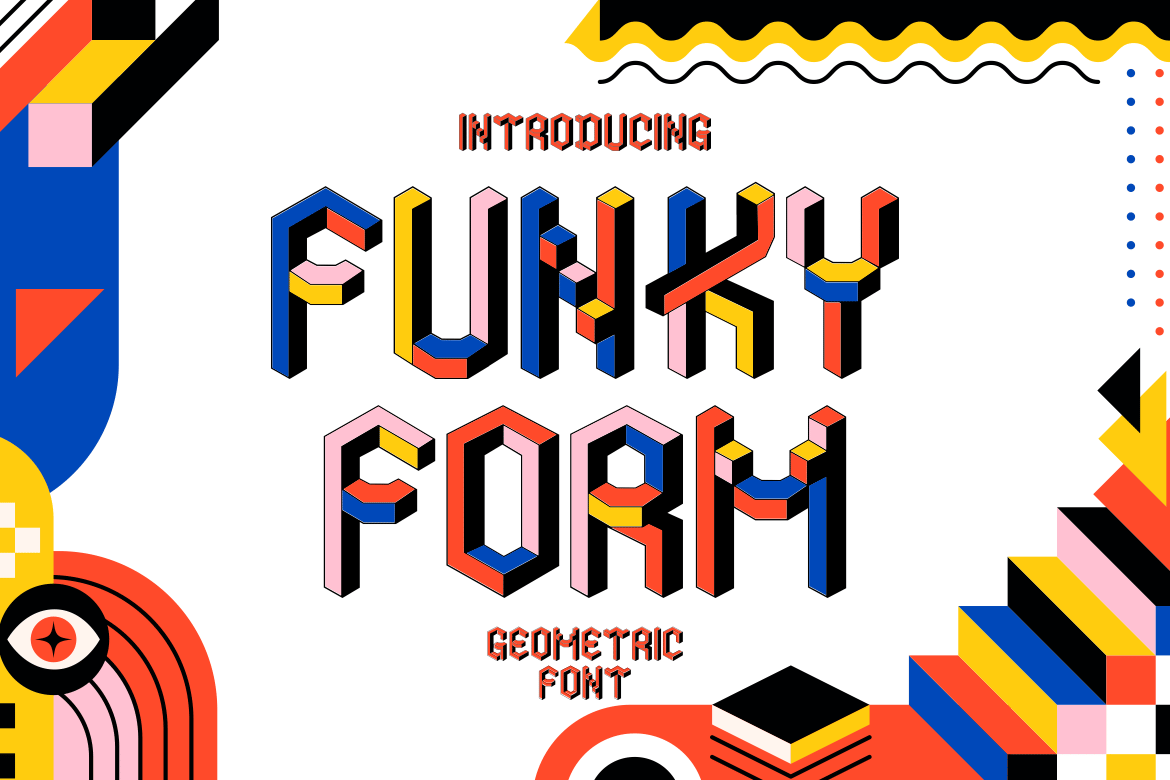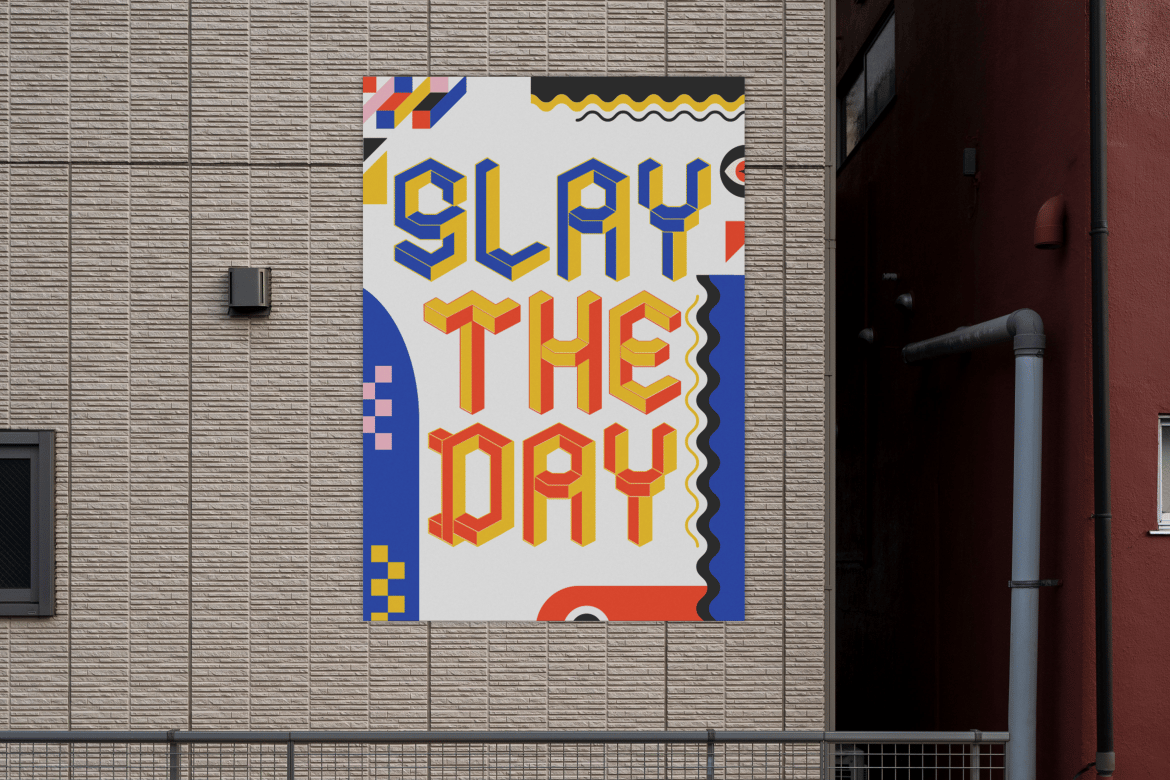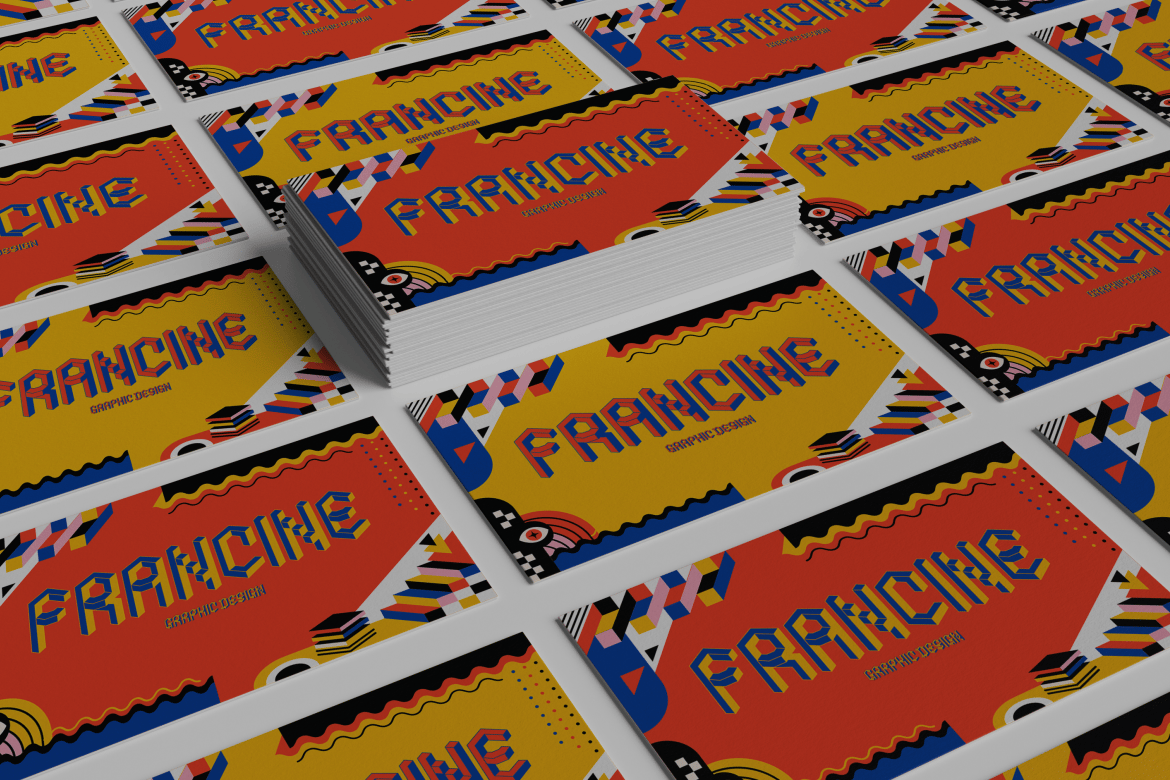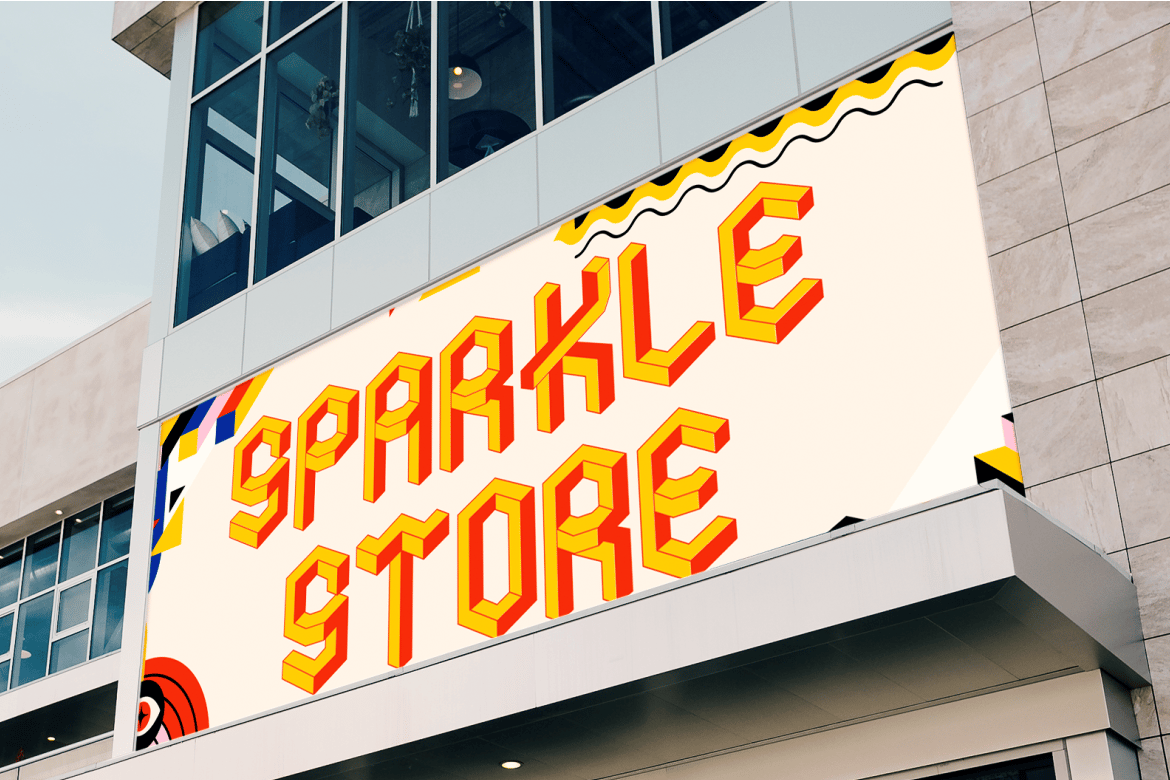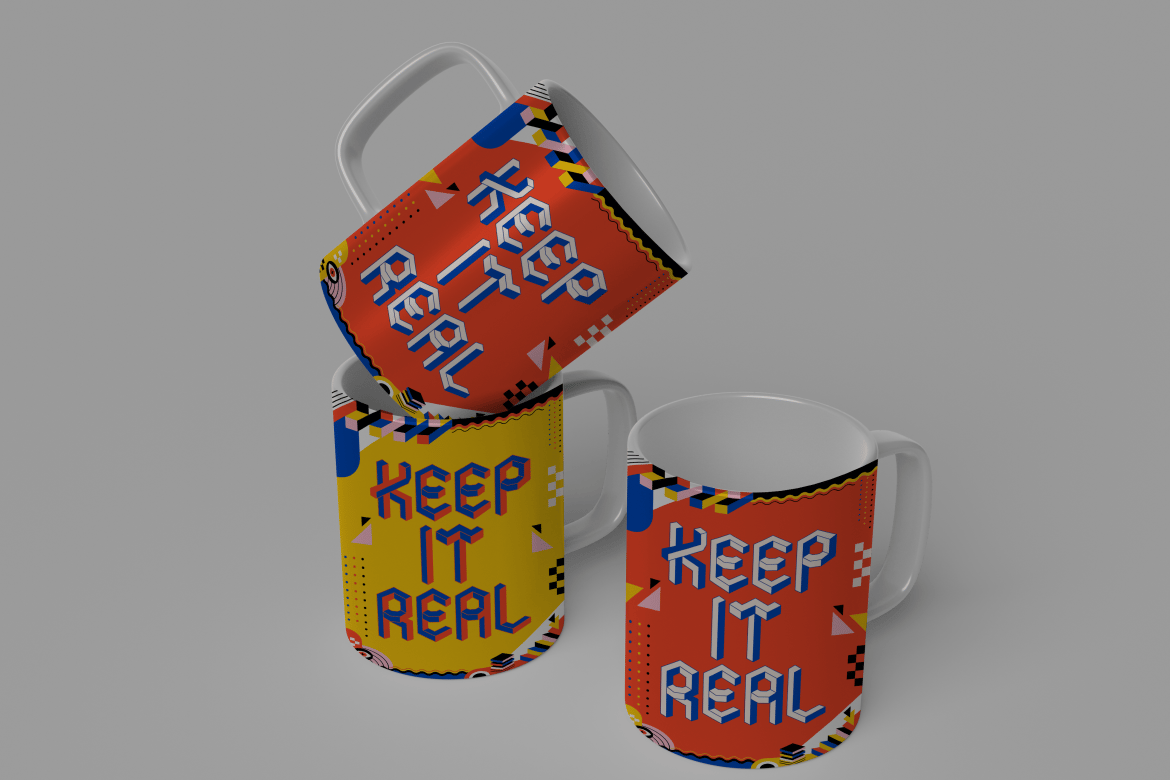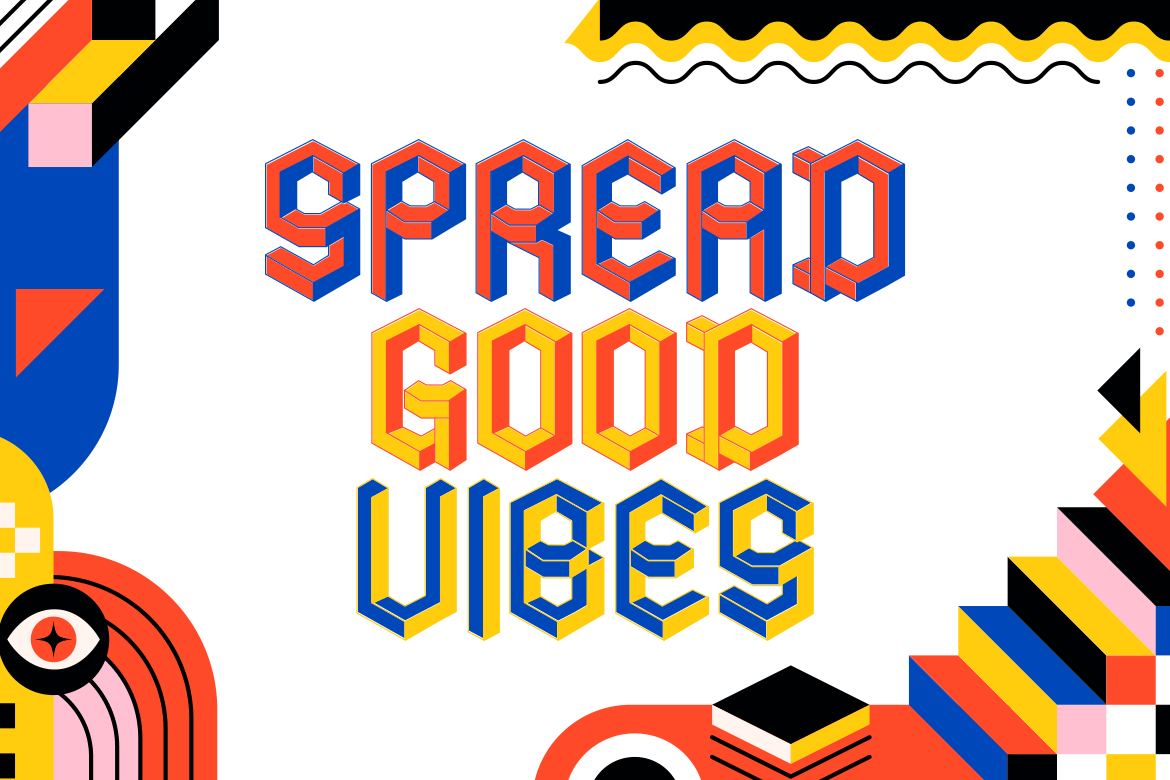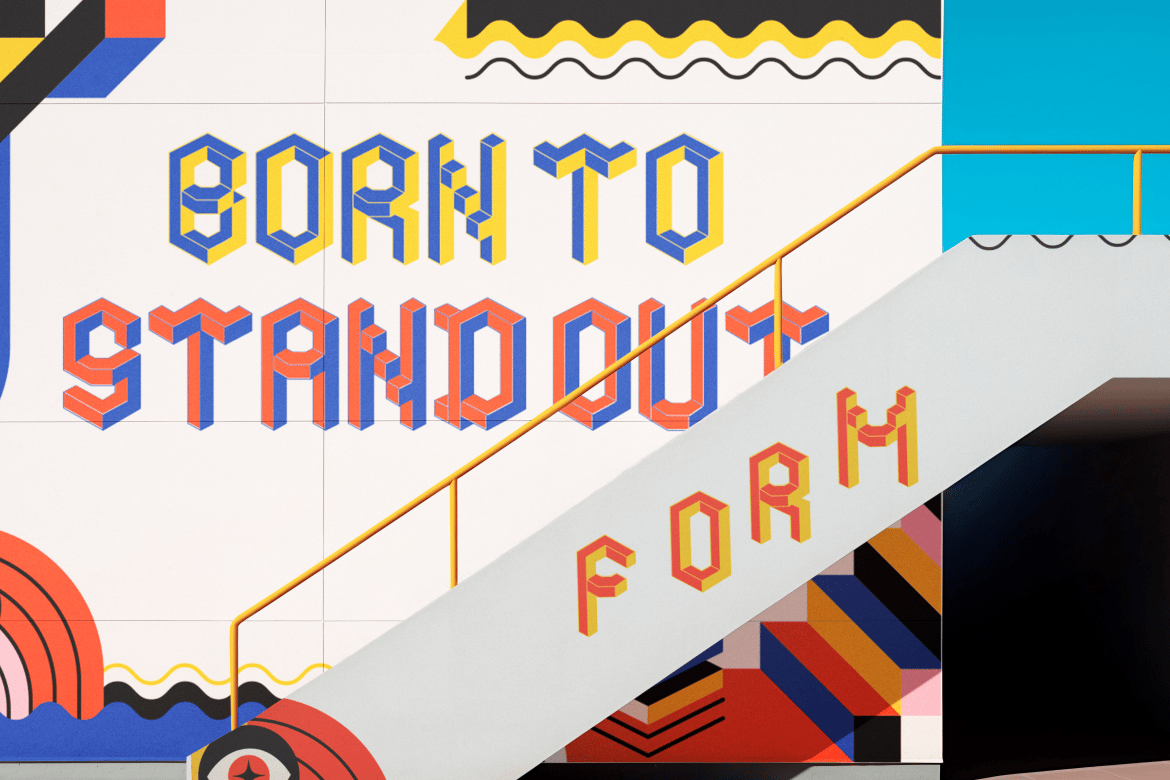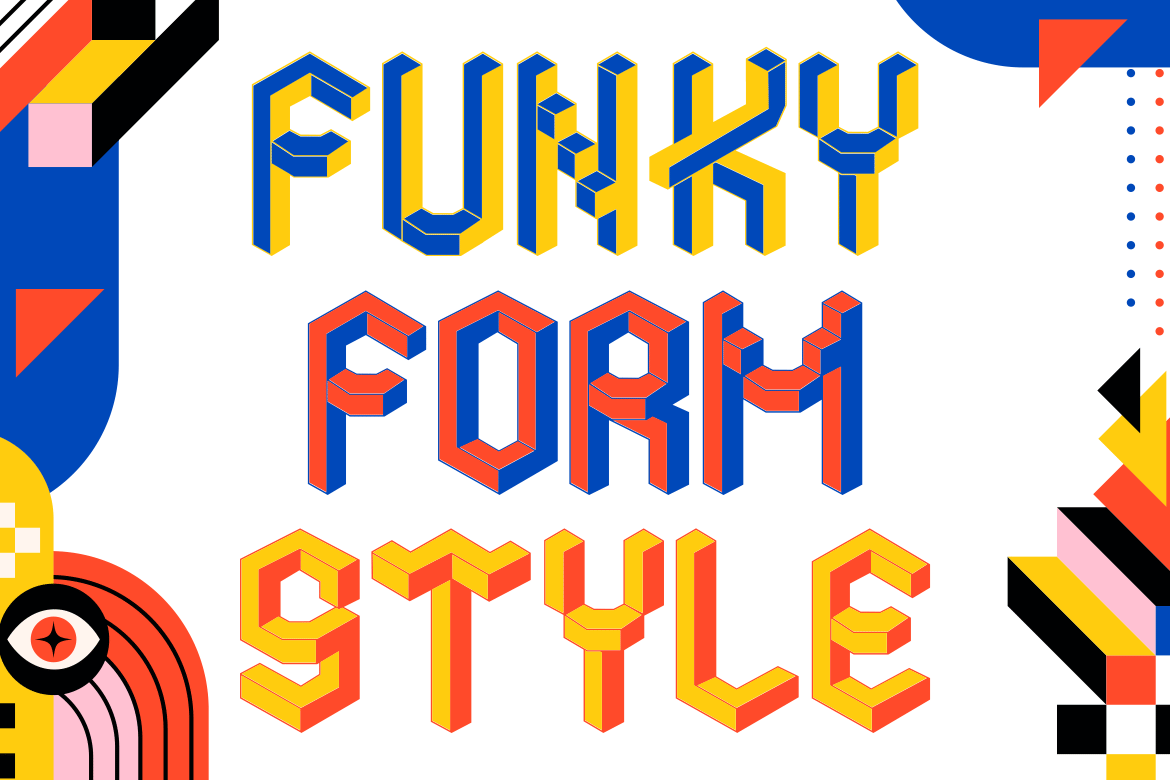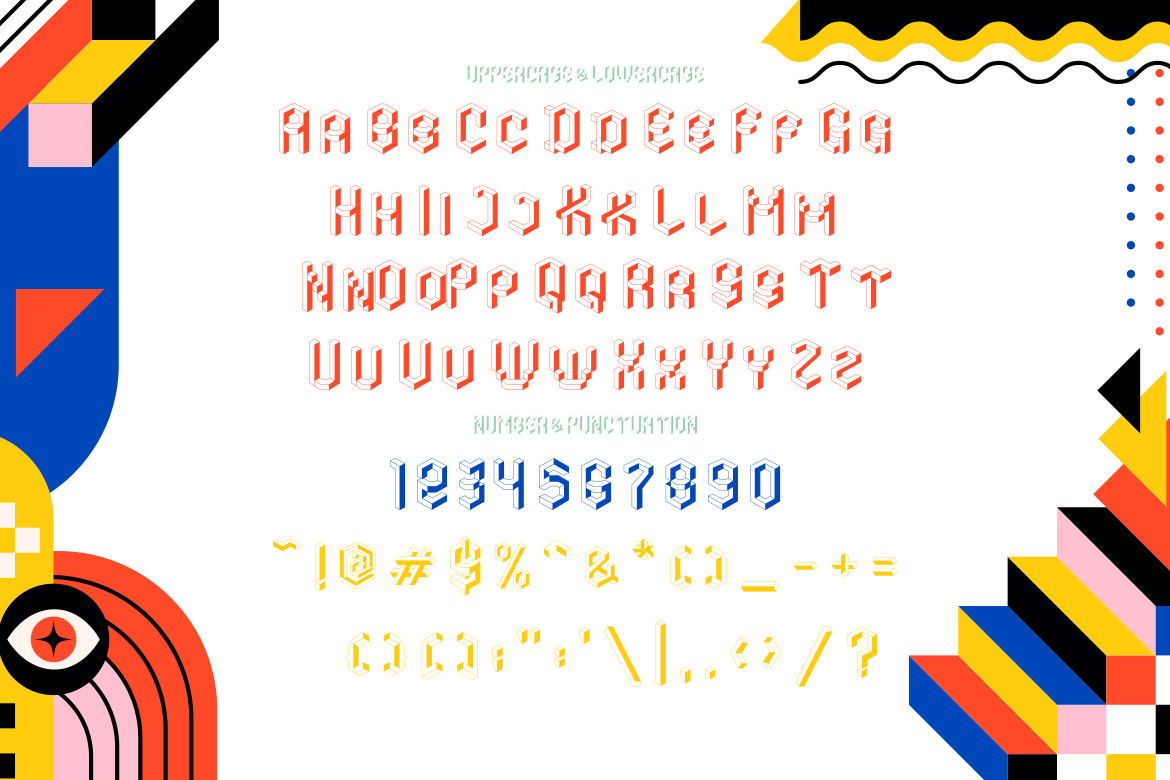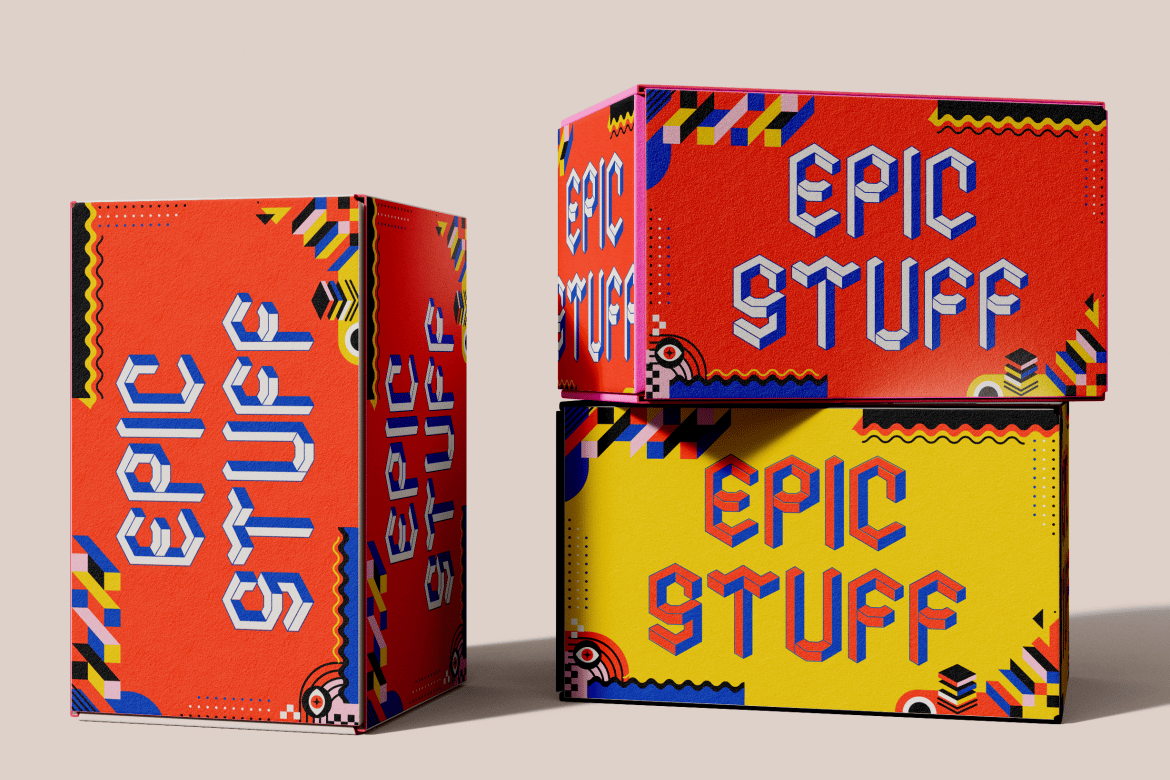
Funky Form – Geometric Isometric Font
Introducing “Funky Form – Geometric Font,” an avant-garde typeface designed to bring a fresh twist to your creative projects. With its unique blend of display and geometric styles, this font stands out with its isometric flair and block-like characters that evoke a sense of playfulness while maintaining professional integrity. Perfectly suited for game-themed designs or any project requiring an eye-catching touch, “Funky Form – Geometric Font” offers versatility without compromising on style.
Crafted meticulously to serve diverse needs, “Funky Form – Geometric Font” excels in various applications such as logo creation, branding endeavors, crafting projects, invitation cards, packaging design, poster headlines, business presentations, greeting cards production, sticker templates, children’s books typography enhancement, and magazine layouts among others. Its distinctive look ensures your work will leave a lasting impression while providing readability across all mediums.